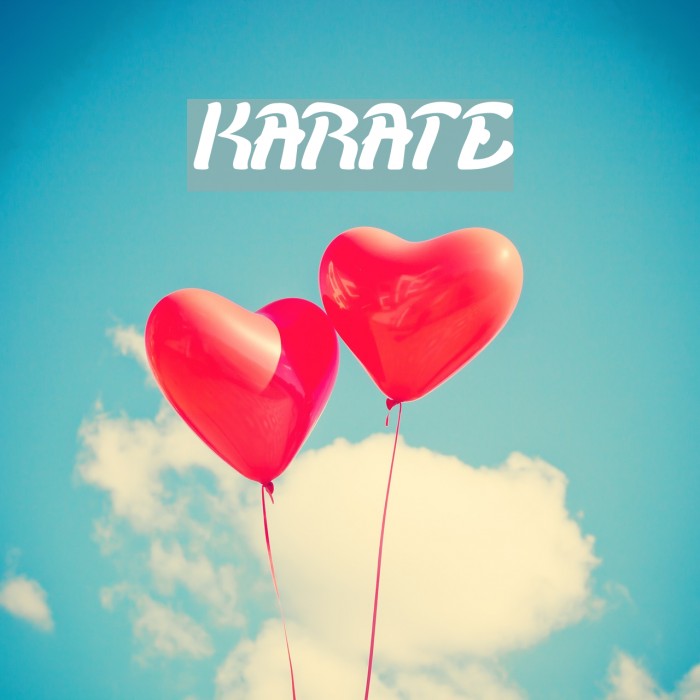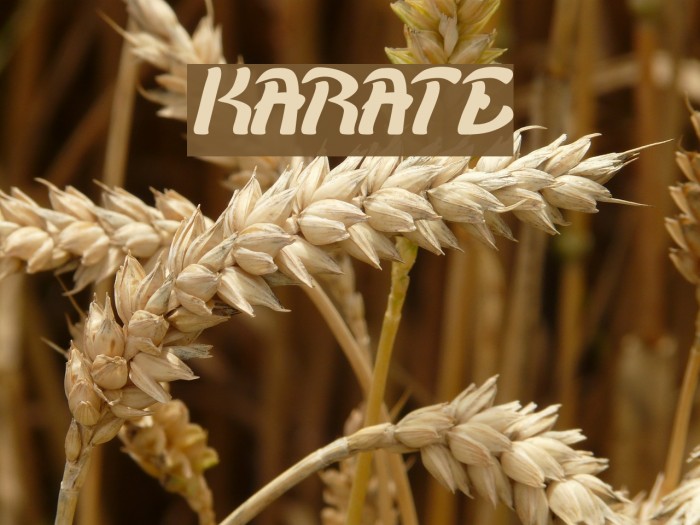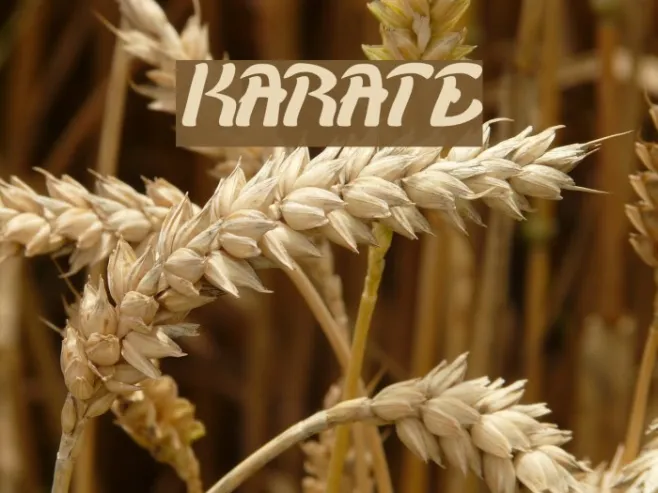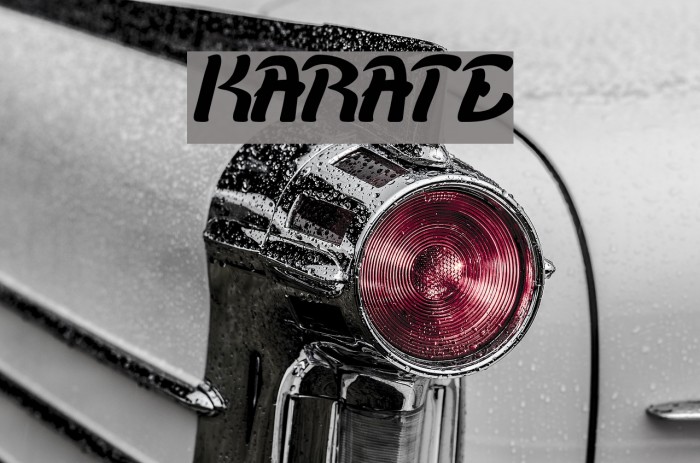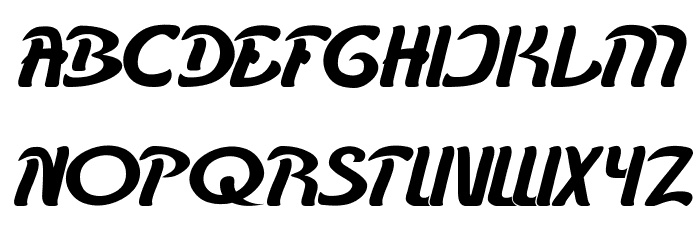
KARATE Font
KARATE Description
This font features a bold and dynamic style, characterized by its thick strokes and fluid curves. The letters exhibit a sense of movement and energy, reminiscent of brush strokes or calligraphy. The uppercase letters are particularly striking, with a strong presence and a slightly italicized slant that adds to the dynamic feel. The overall design is cohesive, with consistent stroke widths and smooth transitions between curves and angles. This font is well-suited for creating impactful headlines or titles that need to capture attention and convey a sense of action or excitement.
| Proposed Projects | Ideal for sports branding, action movie posters, dynamic event flyers, and martial arts themed designs. |